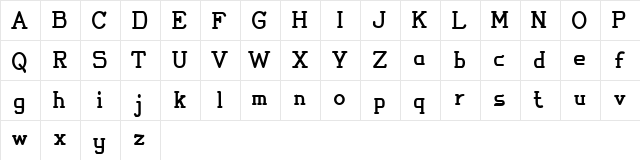
Thomas Elegant Thomas Elegant
| Foundry | Cundrawan (cove703) |
| Designer | Cundrawan (cove703) |
Design Context for Thomas Elegant Typeface
Thomas Elegant is a composed and adaptable typeface that performs quietly and consistently across a wide range of design contexts.